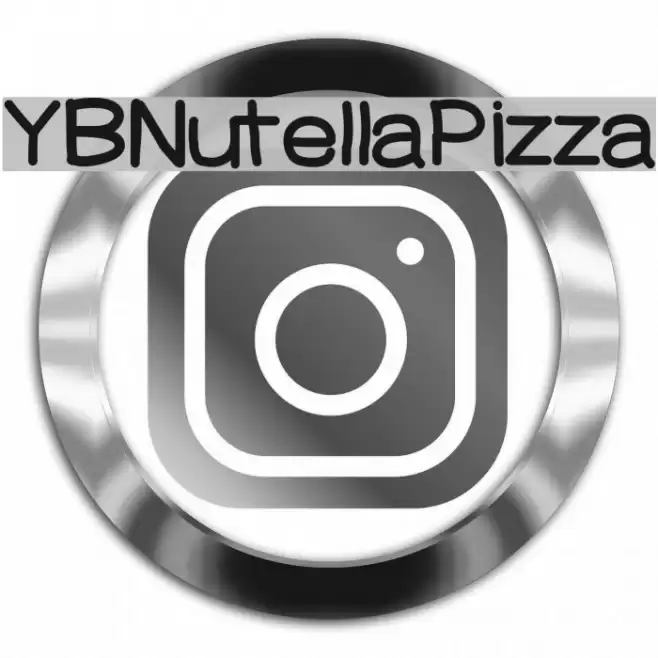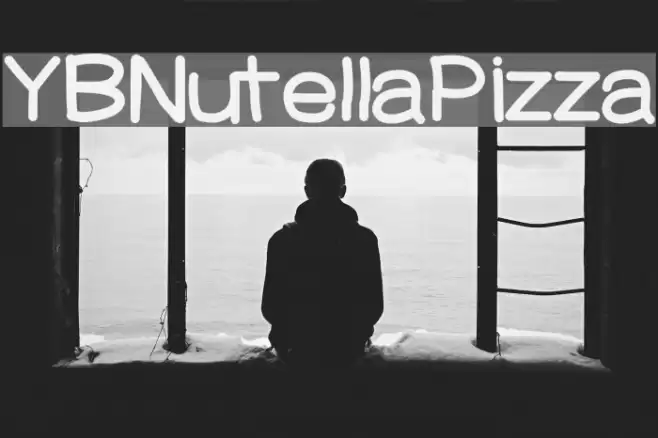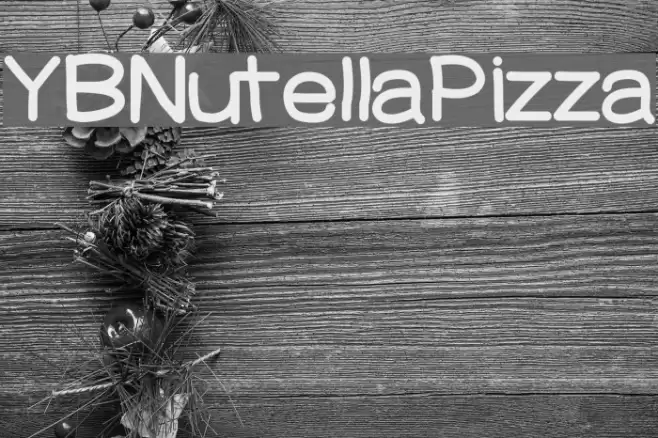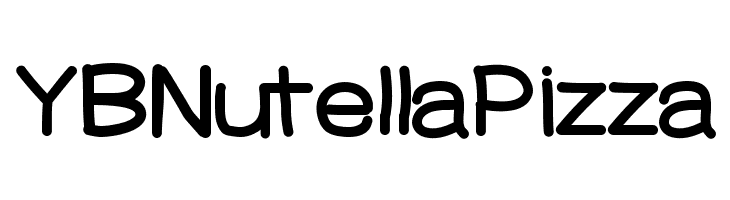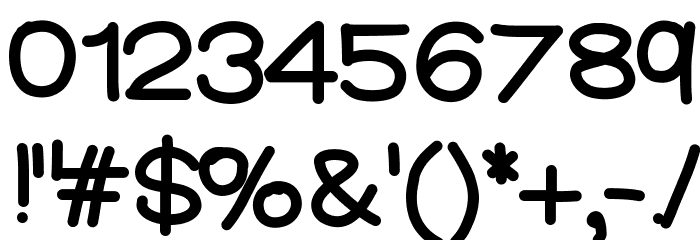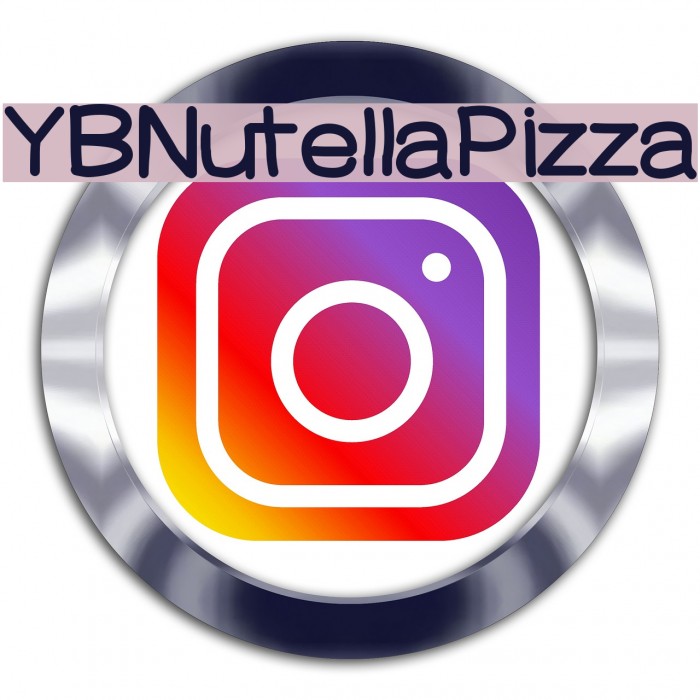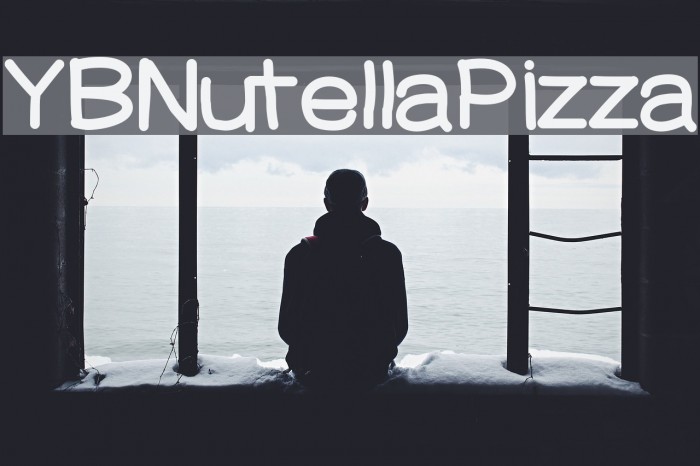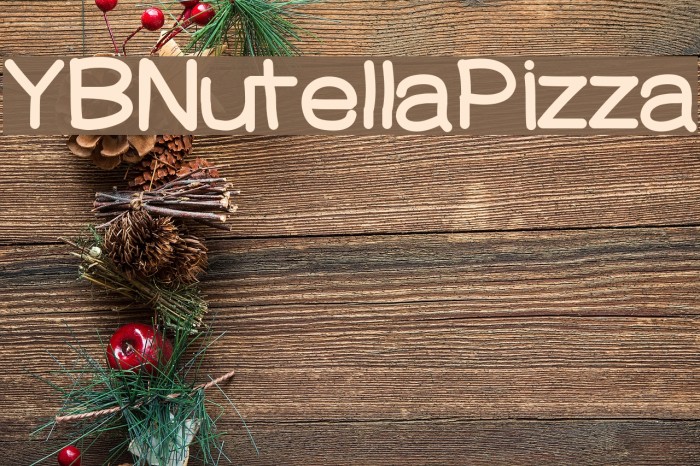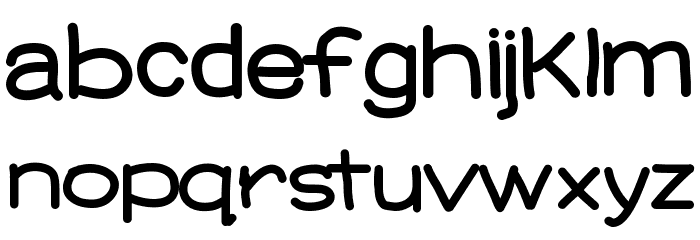
YBNutellaPizza Font
YBNutellaPizza Description
This playful and rounded font features a friendly and approachable style, characterized by its smooth curves and consistent stroke width. The letters are bold and slightly condensed, giving it a compact appearance while maintaining readability. The uppercase and lowercase letters are well-balanced, with a slight emphasis on the rounded terminals, adding a whimsical touch. The numerals and special characters follow the same design principles, ensuring uniformity across all glyphs. This font exudes a casual and informal vibe, making it suitable for projects that require a fun and engaging aesthetic.
A playful, rounded font with smooth curves and a friendly style from Uncategorized fonts.
- Proposed Projects: Ideal for children's books, playful branding, casual invitations, and social media graphics.
- Overall Style: Casual
- Use Case: Headlines, Logos, Informal Text